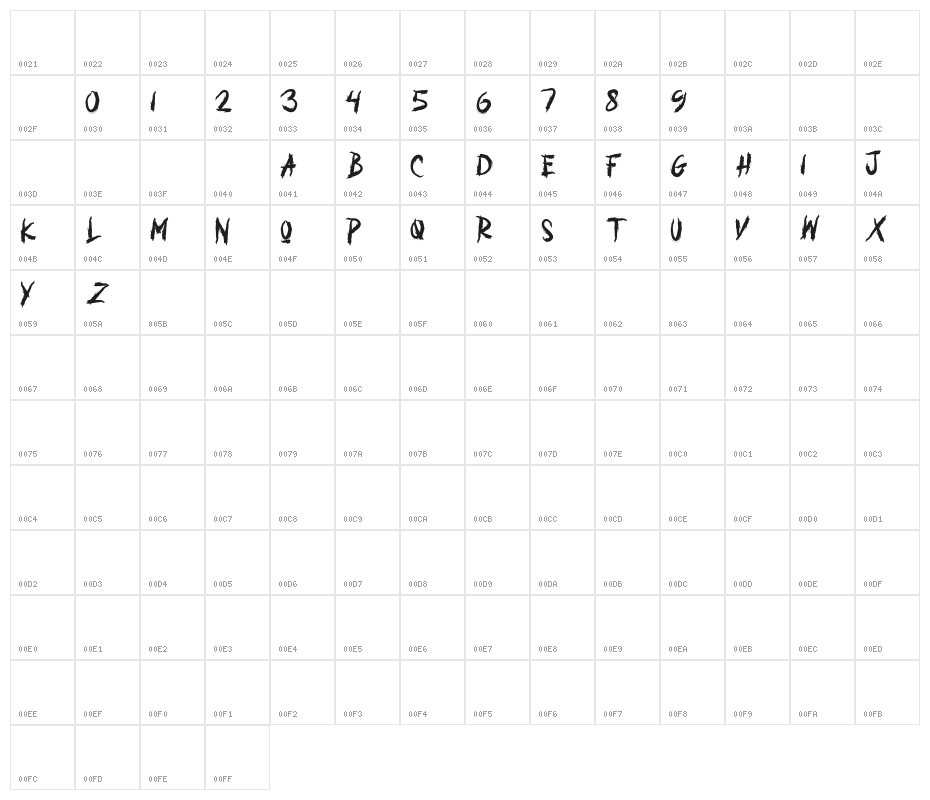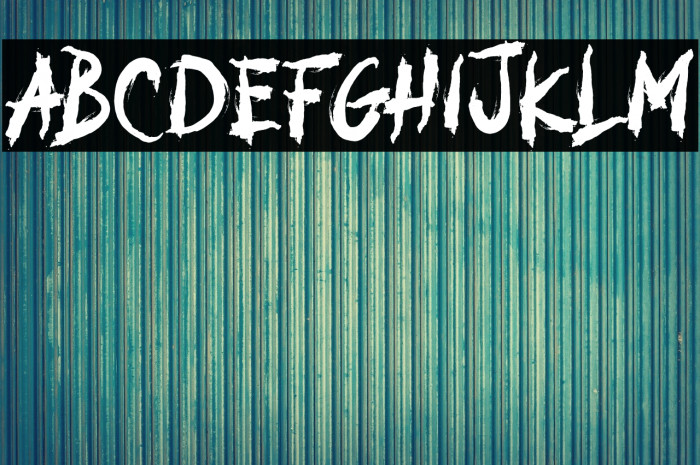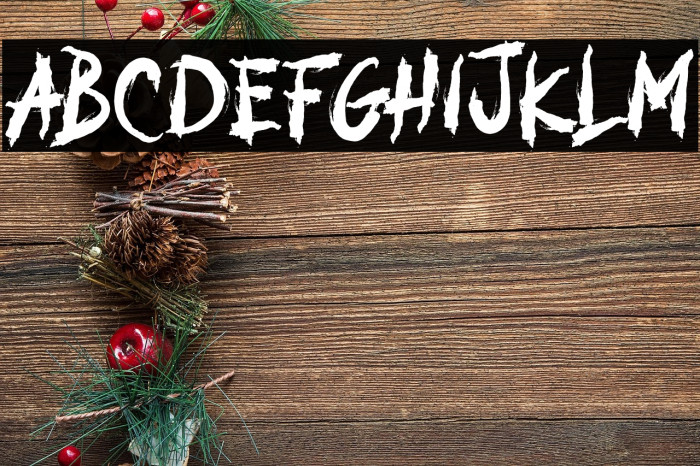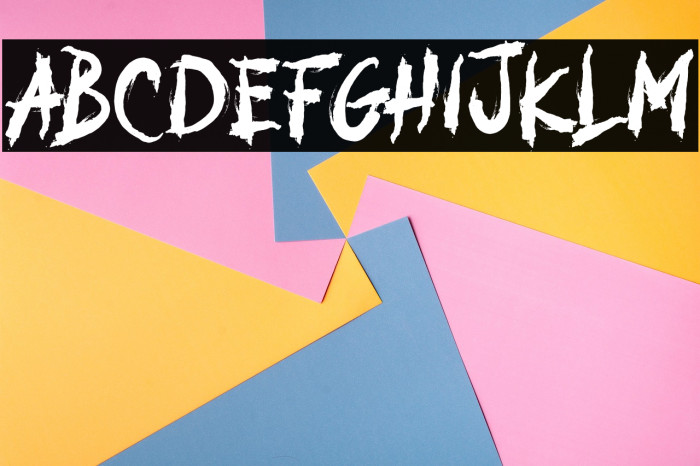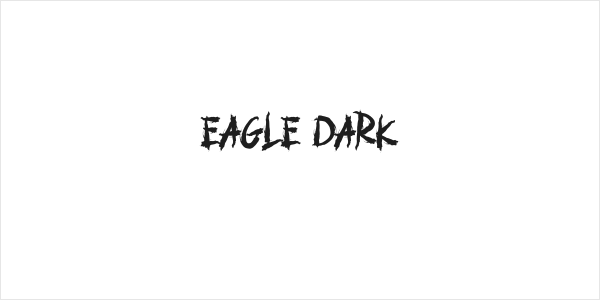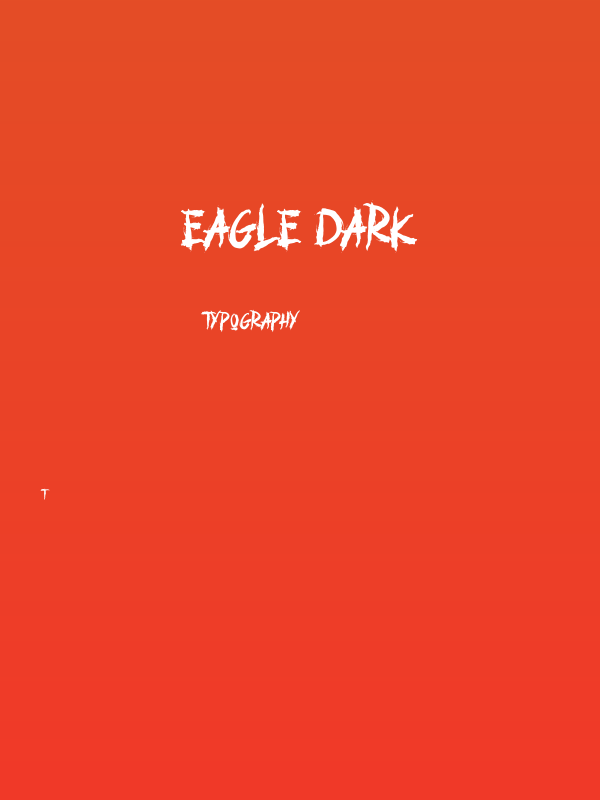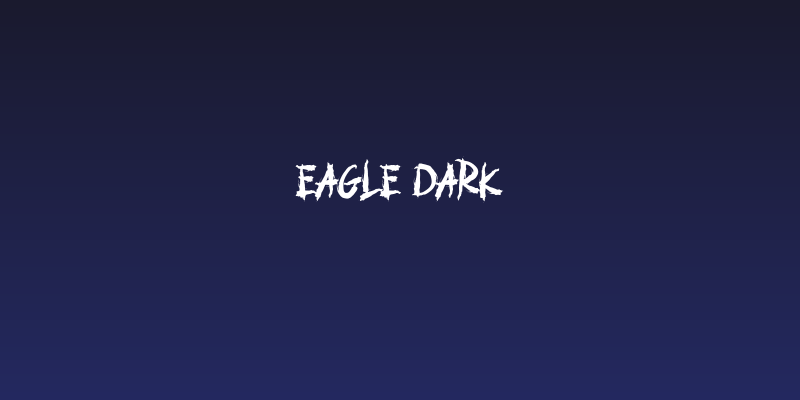
EAGLE DARK Font
EAGLE DARK Description
This font features a bold and dynamic brushstroke style, reminiscent of hand-painted lettering. The characters are irregular and expressive, with a sense of movement and energy that captures attention. The uppercase letters are particularly striking, with sharp angles and varying stroke widths that create a dramatic effect. The numbers follow the same style, maintaining consistency throughout. This font is ideal for projects that require a strong visual impact, such as posters, logos, or headlines. Its unique style makes it stand out, adding a creative and artistic touch to any design.
| Proposed Projects | Ideal for posters, logos, headlines, and any design needing a strong visual impact. |